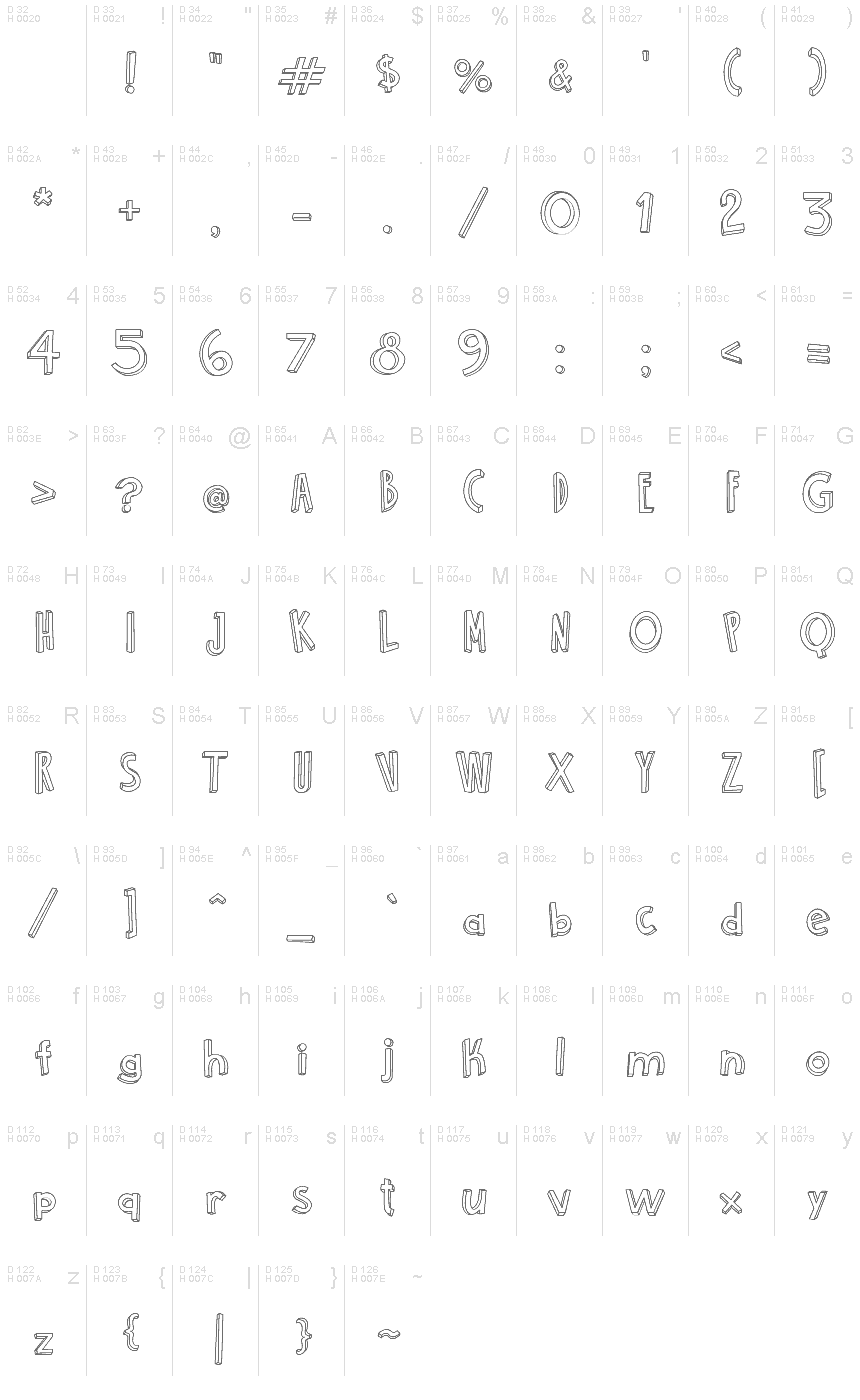
Education is a Way Bold
Education is a Way Bold font designed by Galdino Otten Fonts is a three-dimensional cartoon display font of a bold weight that feels comic-like, casual, and whimsical. The style focuses heavily on outlines with no inner space of the actual character shapes, even those large enough to be clearly visible. Straight edges and clearly defined sharp corners give off the look that appears as if it was all cut out of paper or designed with one continuous line.
Use this free display typeface for comics, cartoons, doodling artwork, kids’ book covers, educational school content design and typography projects like books or flash cards. Other applications can include coloring books covers and pages for various ages (where outlined characters can be filled in), lettering on business cards for children-focused communities like Day Care centers or children’s toy stores.